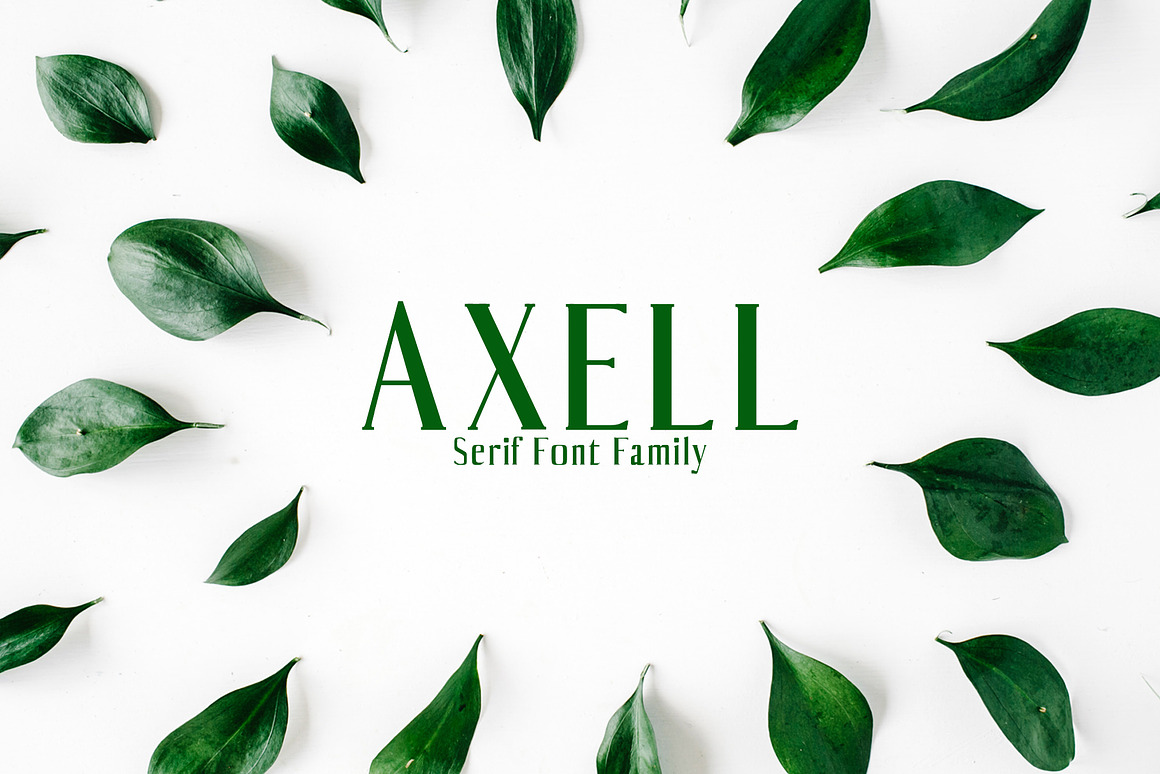
Axell Serif Font Family Pack
Axell Serif Font Family Pack is perfect for premium editorial design, sophisticated book publishing, luxury brand communications, upscale magazine layouts, corporate identity systems, professional documentation, elegant marketing materials, and distinguished print publications.
Axell Serif Font Family Pack is exciting because it masterfully balances classical serif elegance with modern functionality, featuring meticulously crafted letterforms and optimized proportions that deliver exceptional readability while projecting refined sophistication. Its distinguished character creates authoritative visual presence across all professional applications.
Axell Serif Font Family Pack family includes light, regular, medium, and bold weights with matching italic variations, offering designers eight expertly balanced font styles for comprehensive typographic solutions and sophisticated visual hierarchies.
Editorial professionals consistently choose Axell Serif Font Family Pack for its outstanding versatility in both digital and print publishing applications. The font's classical foundation provides familiar reading comfort while contemporary refinements ensure optimal performance across modern media platforms. Its comprehensive weight range provides excellent typographic flexibility for complex editorial layouts requiring sophisticated visual hierarchy and professional presentation quality.
Publishing teams appreciate Axell Serif Font Family Pack's ability to establish immediate credibility and sophisticated brand positioning through superior typographic quality. Its timeless appeal transcends design trends while maintaining the gravitas required for serious professional discourse, making it an indispensable asset for organizations seeking to create lasting authority through exceptional typographic communication and premium editorial standards.